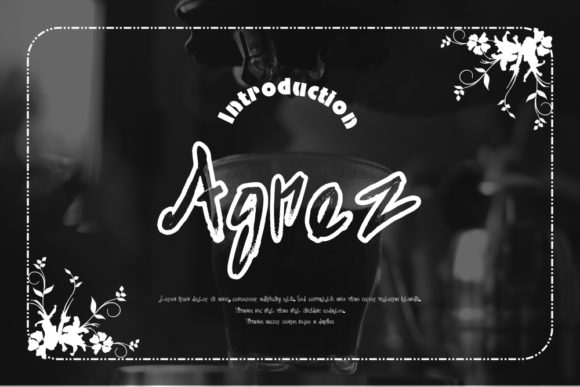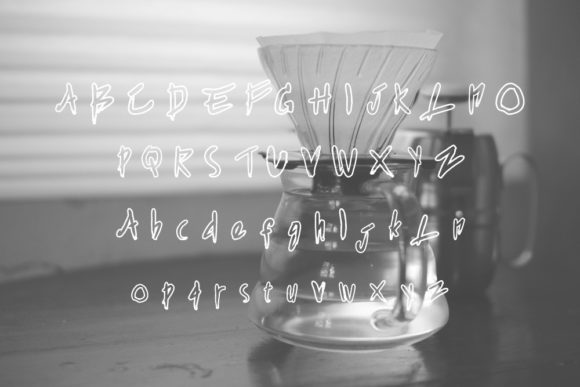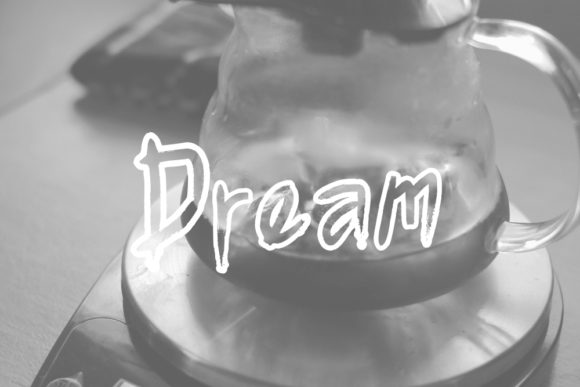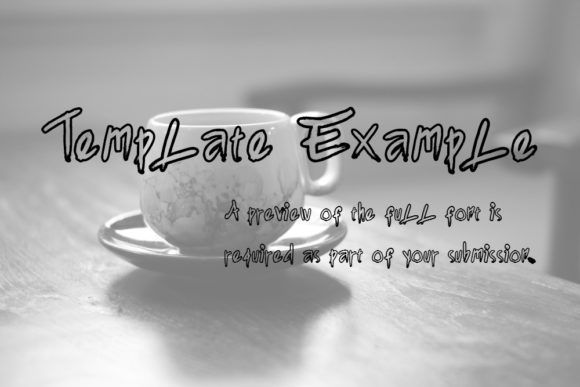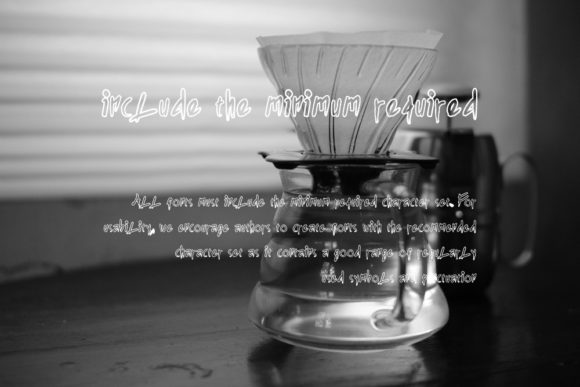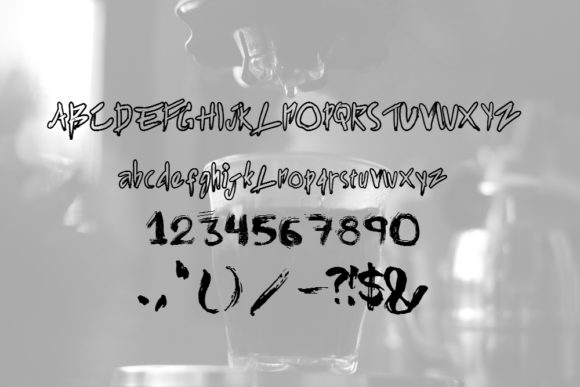
Agnez Font
About Agnez Font
Agnez is a simple and original handwritten font, created by using a brush pen. Clean and a little bit quirky, this font is the perfect fit for all of your logos, branding, social media, and crafty DIY projects.